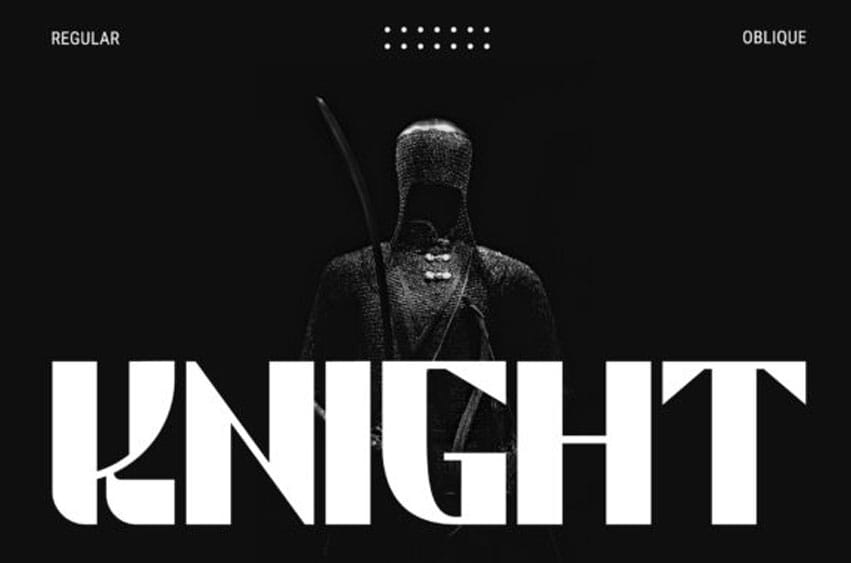
Knight Fontwas inspired by the knight himself, who was strong, wise, and the fastest horseman.
It is a unique display font that will take your creations out of the ordinary!